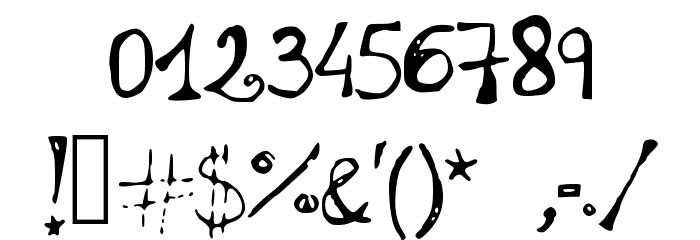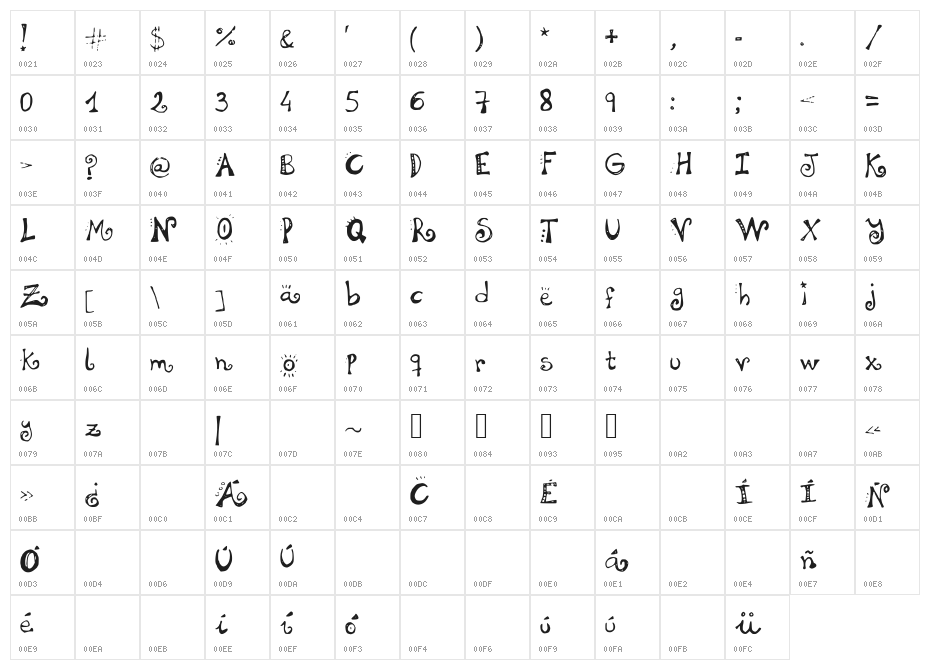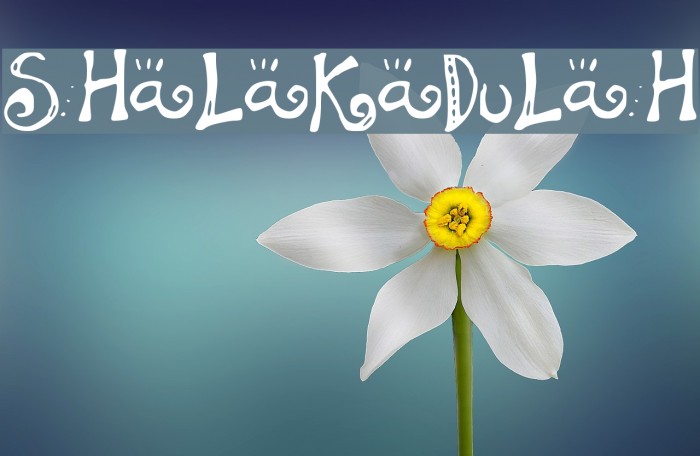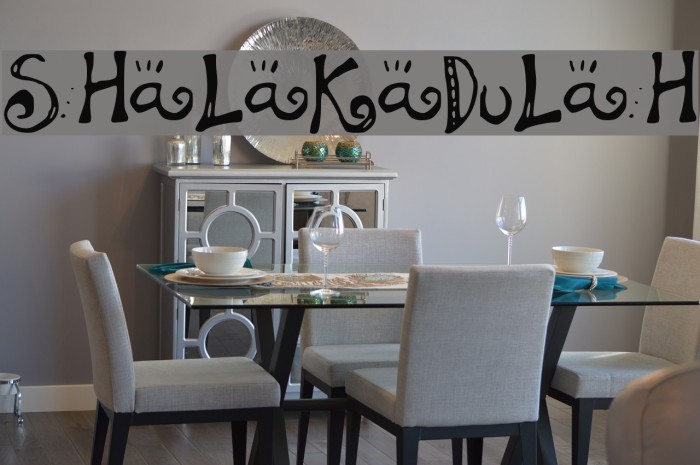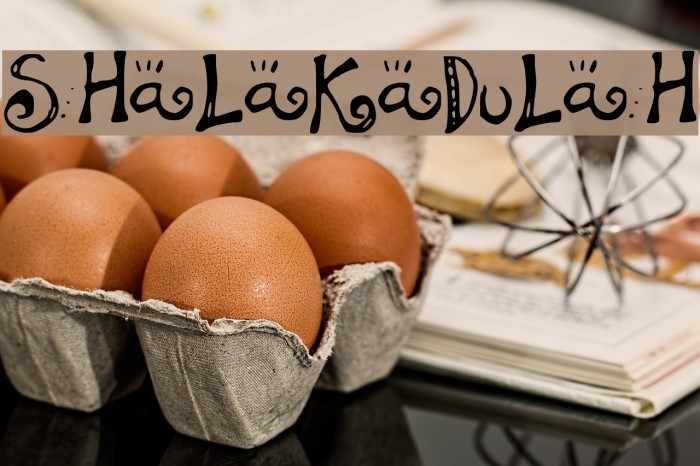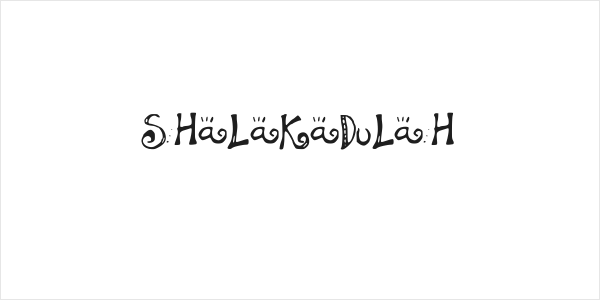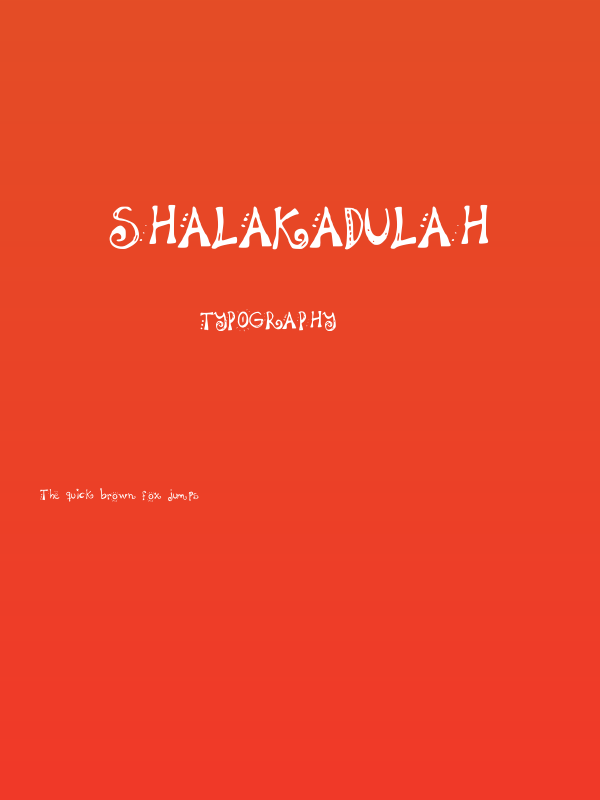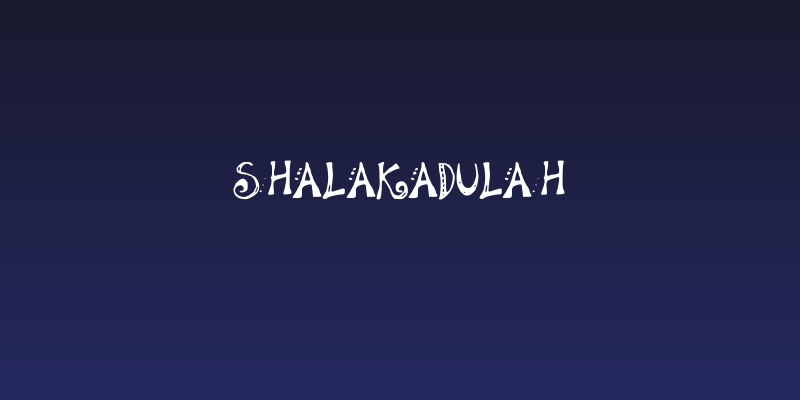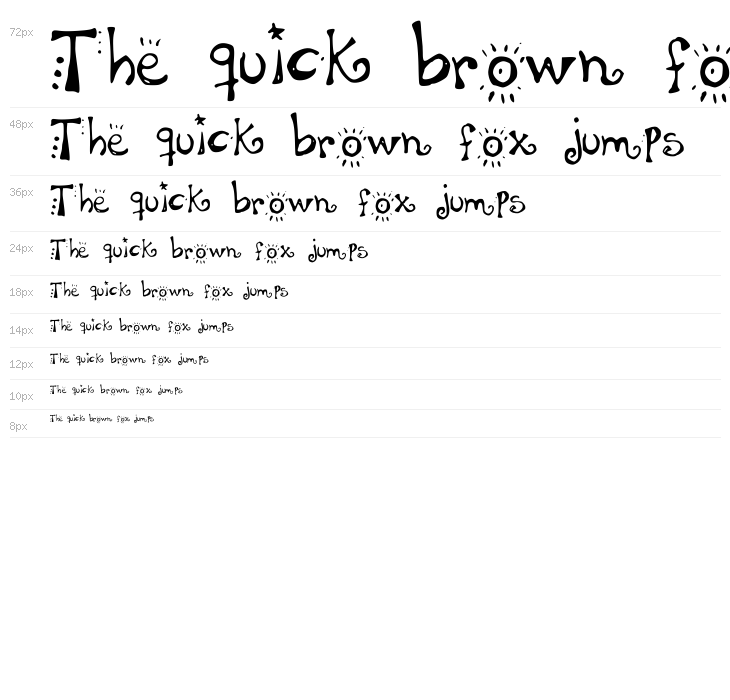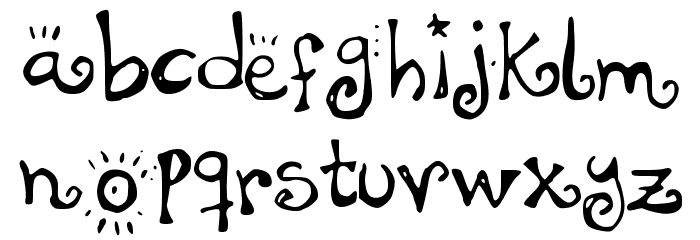
SHaLaKaDuLaH Font
SHaLaKaDuLaH Description
This whimsical and playful font features a unique blend of quirky and decorative elements. Each character is adorned with dots, swirls, and unexpected flourishes, giving it a lively and magical appearance. The uppercase letters are bold and dynamic, with varying stroke widths and playful embellishments. Lowercase letters maintain the same whimsical style, with some characters featuring star-like accents. The numbers are equally distinctive, with a hand-drawn feel that adds to the font's charm. Special characters are creatively designed, incorporating the same playful elements found throughout the alphabet. This font exudes a sense of fun and creativity, making it perfect for projects that require a touch of magic and imagination.